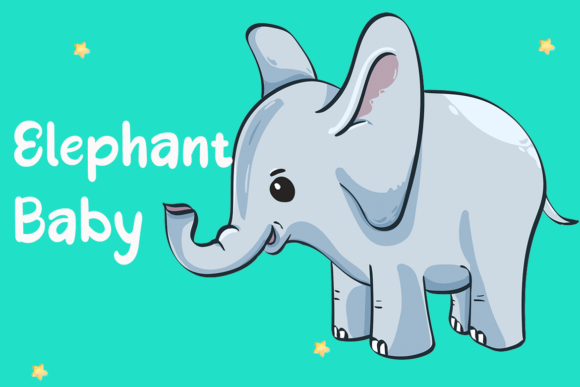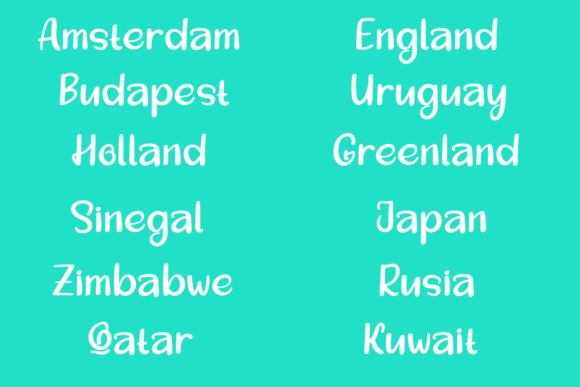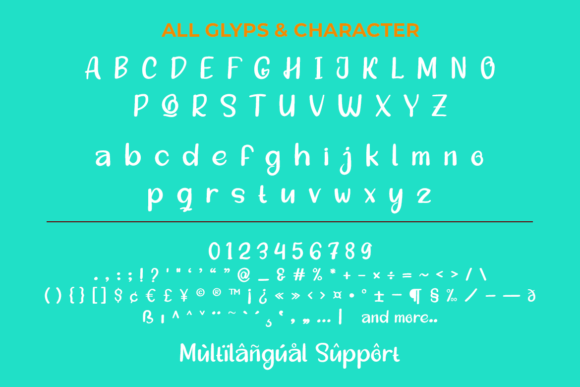
Introduction to Sleeky Font
Have you ever stared at a blank canvas, your mind racing with ideas, but your fingers hovering over the keyboard, waiting for the perfect font to bring your creative project to life? For designers, this moment of hesitation can be a major obstacle, but what if you had the perfect font to unlock your imagination?
Enter Sleeky Font, a sweet and friendly display font that’s as versatile as it is charming. With its natural and unique style, Sleeky Font is the perfect design resource for creatives who want to add a touch of personality to their work. Whether you’re working on a project that requires a transparent background or a high-quality design element, Sleeky Font is a valuable asset that’s sure to elevate your work.
Key Features of Sleeky Font
- High-quality design resource ideal for creative projects, offering a unique aesthetic.
- Features a transparent background, allowing for effortless layering and customization.
- Designed with a focus on legibility and readability, making it suitable for a range of creative projects.
- Can be easily scaled and manipulated to fit the demands of your design, without compromising on quality.
Honest Review: Sleeky Font
As a designer, I’m always on the lookout for high-quality design resources that can elevate my creative projects. Recently, I had the chance to try out the Sleeky Font, and here’s my honest review.
What works well: ✨ The Sleeky Font is incredibly versatile and can be used for a wide range of creative projects, from modern logos to sleek typography. I was impressed by its clean and minimalist design, which makes it perfect for creating a consistent visual identity. The font also comes with a transparent background, which is a nice touch.
What doesn’t work so well: ⚠️ While the Sleeky Font is a great addition to any designer’s toolkit, I did find that it can be a bit too minimalist for some projects. It’s not as bold or eye-catching as some other fonts I’ve worked with, so it may not be the best choice for projects that require a lot of visual impact.
Overall impression: I was pleasantly surprised by the Sleeky Font, and I think it’s a great free download for designers who want a high-quality, versatile font for their creative projects.
- Pros:
- Great for modern and minimalist projects
- Wide range of creative applications
How to Use Sleeky Font
Sleeky Font is a high-quality, free design resource ideal for creative projects. With its unique style and transparent background, it adds a touch of sophistication to any design.
Tips for Getting the Most Out of Sleeky Font
For the best results, use Sleeky Font on a light background to make the text stand out. You can also experiment with different font sizes and colors to create a unique design.
Sleeky Font is ideal for:
- Business cards and brochures
- Web design and landing pages
- Presentations and slides
- Posters and flyers
Comparison to Sleeky Font: Nunito Font is more geometric and refined compared to Sleeky Font, which has a more rounded and friendly feel.
Montserrat Font is a popular sans-serif typeface that originated from a signage in a Buenos Aires neighborhood. It is highly legible and features a clean design, making it suitable for creative projects that require a high-quality design resource. Montserrat Font is highly versatile and can be used in various contexts, including digital and print media.
Yes, Sleeky Font is designed with a transparent background, making it ideal for use on high-quality designs with a clear background. This allows the font to blend seamlessly with the design, creating a sleek and modern look.